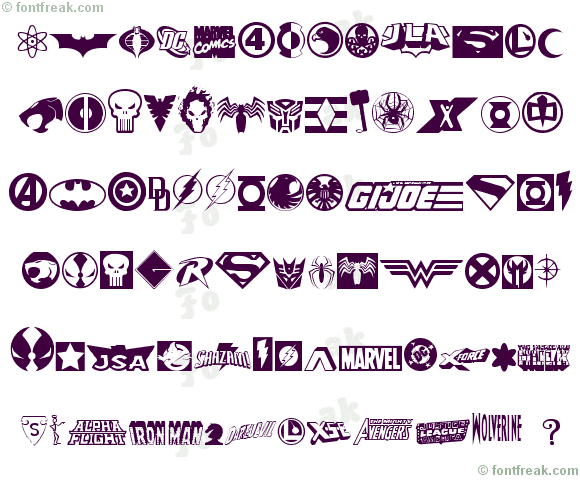
Hall of Heroes
The Hall of Heroes font, designed by Daniel Zadorozny, is a striking display typeface that captures the essence of comic book aesthetics. This decorative font features bold, rounded characters that evoke a sense of adventure and heroism, making it perfect for projects that require a dynamic visual impact. The stroke weight is consistent yet substantial, providing a strong presence, while the lack of excessive contrast lends itself to versatility across various media. The spacing is well-balanced, ensuring readability while enhancing the overall visual appeal. The font is adorned with playful decorative elements that resonate with themes of strength and valor, making it a fitting choice for superhero-themed designs.
The Hall of Heroes font excels in several specific use cases. It is ideal for creating eye-catching movie posters that aim to capture the attention of audiences and convey the excitement of action-packed narratives. Additionally, this font can be effectively utilized in comic book covers and graphics, where its unique style can enhance storytelling through visual representation. It also works well for merchandise aimed at fans of comic culture, such as T-shirts or promotional materials. Small business owners looking to brand their products or services in a fun, engaging manner will find this font particularly appealing, as it adds character to logos and promotional content.
The target audience for the Hall of Heroes font includes graphic designers, content creators, and small business owners who are eager to incorporate a lively touch into their projects. This font stands out not only because of its engaging design but also due to its versatility and ability to evoke emotional connections with viewers. For those seeking a unique typographic solution, the Hall of Heroes font free download offers an exceptional opportunity to elevate creative works to heroic heights.